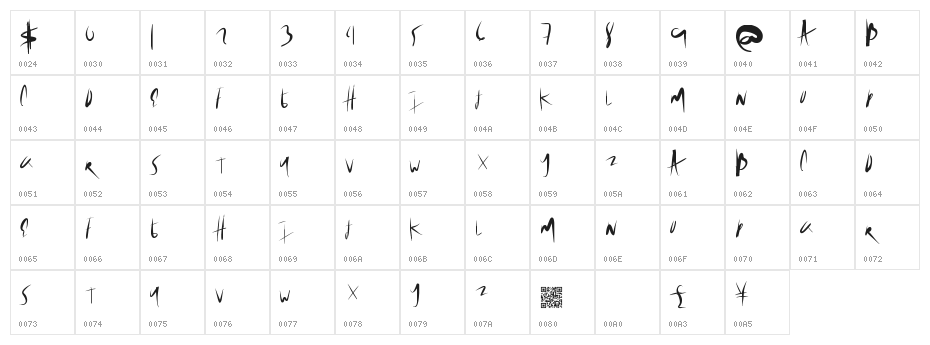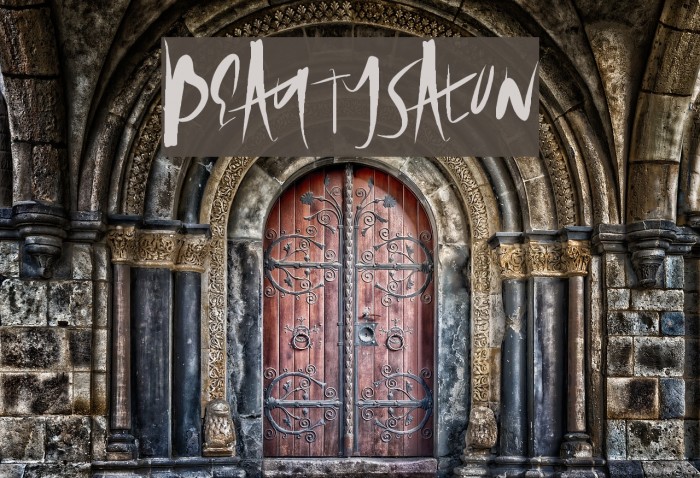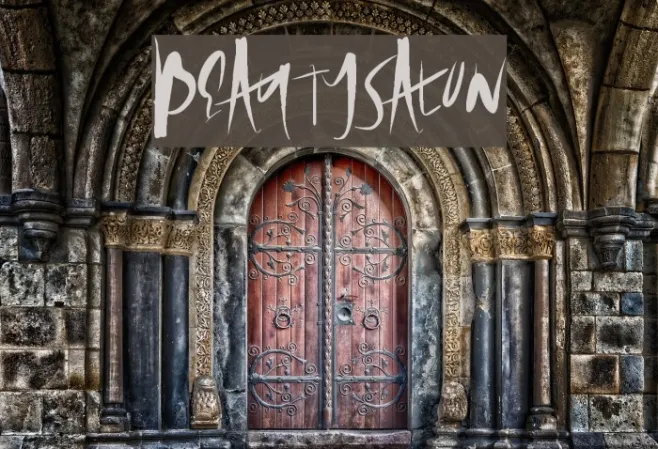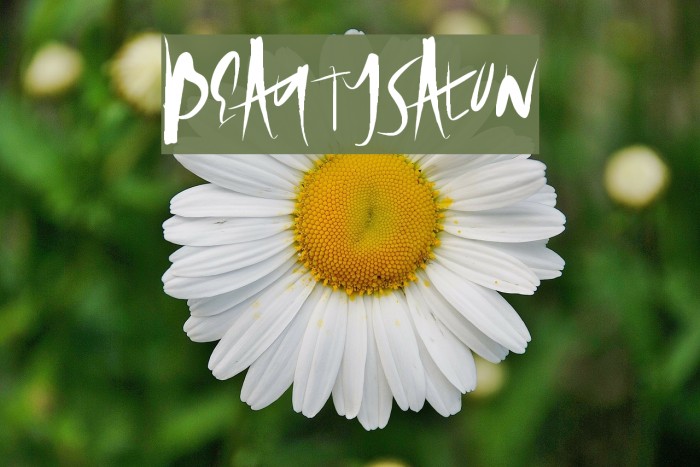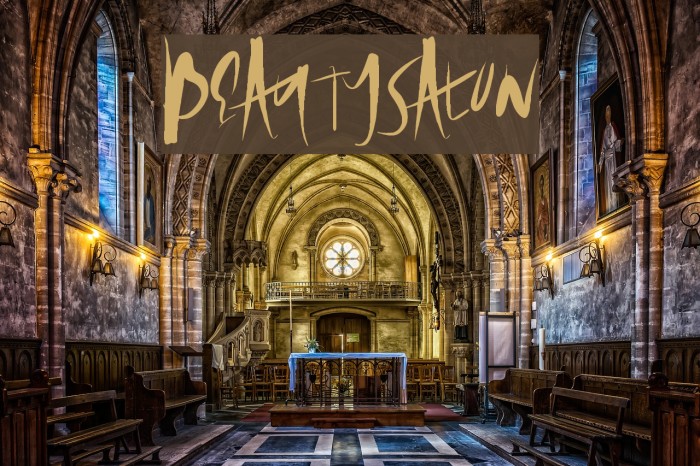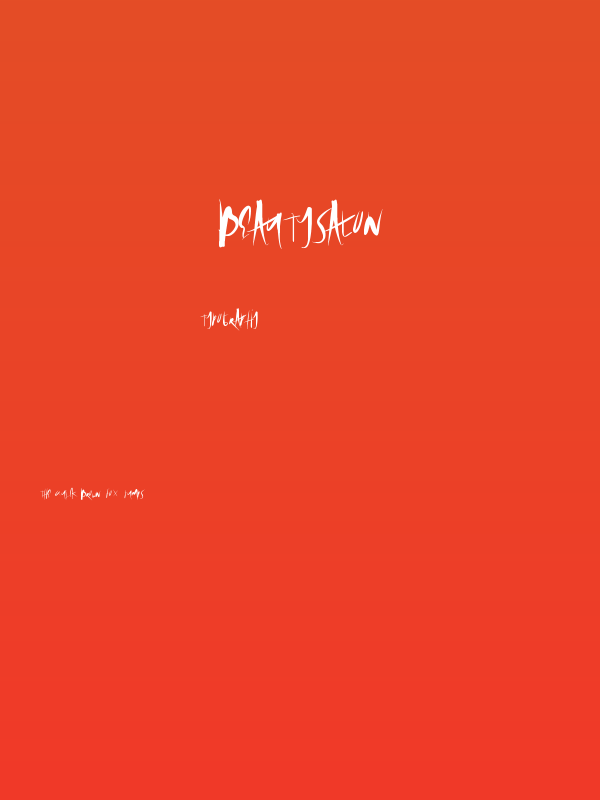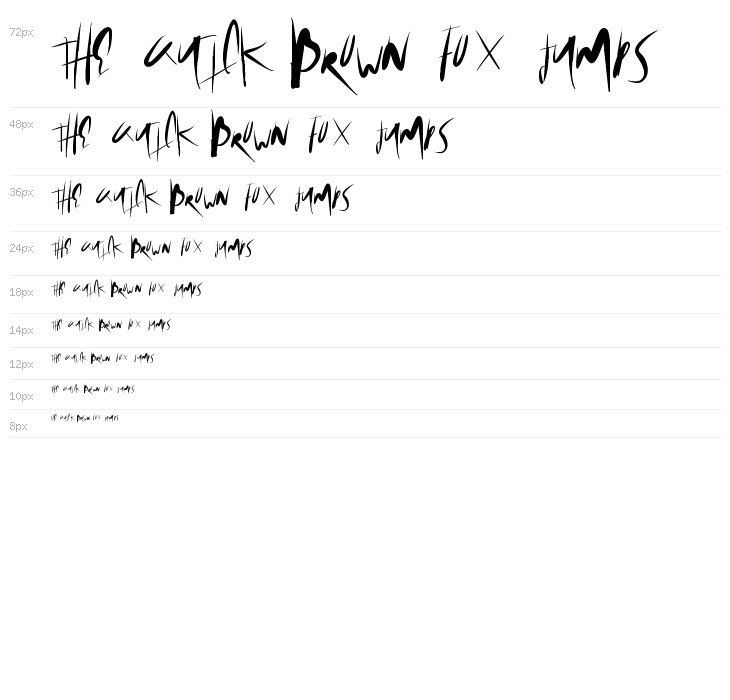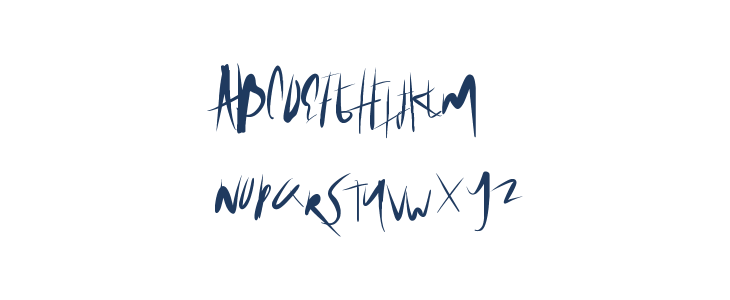
BeautySalon Font
BeautySalon Description
This font features a dynamic and expressive handwritten style, characterized by its sharp, elongated strokes and irregular forms. The letters exhibit a sense of motion and energy, with varying thicknesses that create a striking visual impact. The uppercase and lowercase letters maintain a consistent style, while the numerals and special characters blend seamlessly into the overall design. This font's unique aesthetic makes it stand out, offering a bold and artistic flair that captures attention.
| Proposed Projects | Ideal for creative projects such as branding for fashion or beauty products, artistic posters, album covers, and personal stationery. |